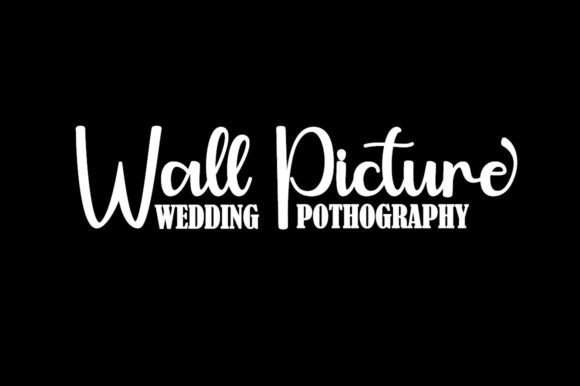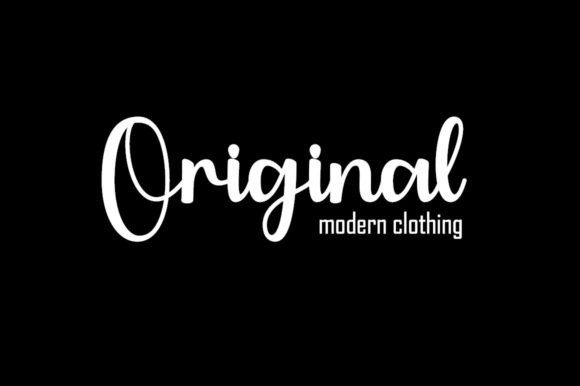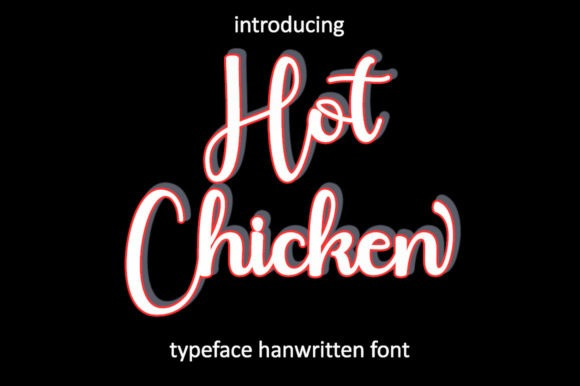
Hot Chicken Font
Hot Chicken Font is a beautiful handwritten font. Fall for its ravishing style and use it to create gorgeous designs. This font is PUA encoded which means you can access all glyphs and swashes with ease!